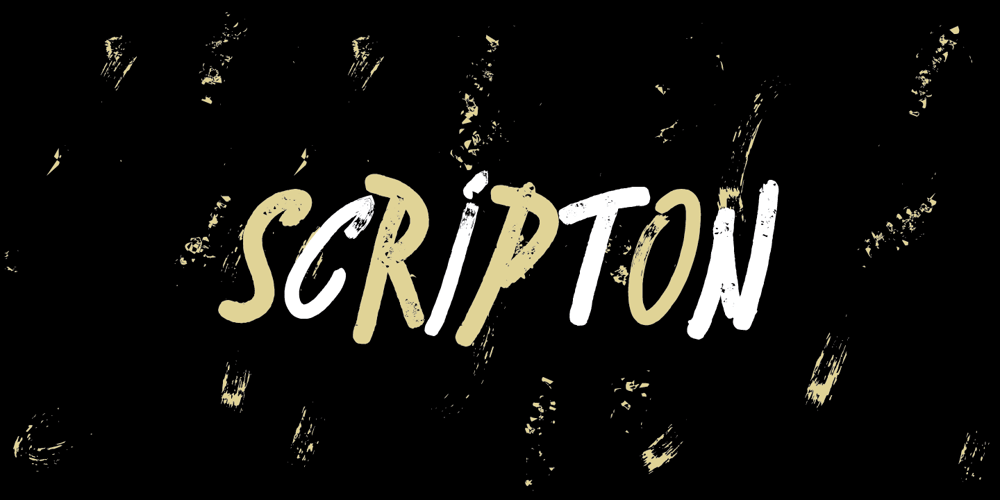
Scripton
Scripton font
Scripton Font Family was designed by Dusan Jelesijevic and published by Tour De Force. Scripton contains 1 styles and family package options. Bouncy, slanted and urban brush typeface Scripton combines 2 different glyph weights within single font file which gives an specific rhytm and contrast to titles and paragraphs.